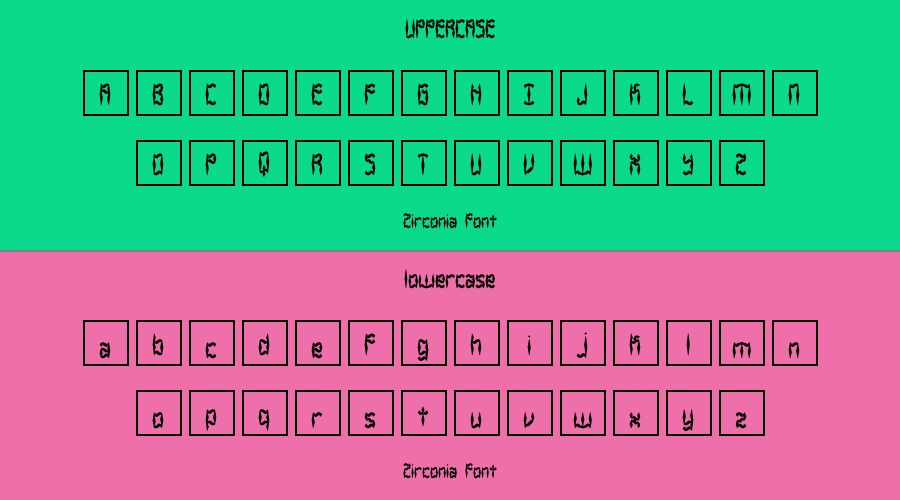
About Zirconia Font
Zirconia Font embodies typographic excellence through its masterful combination of dynamic forms and durability. Created for technical manuals, this typeface delivers exceptional expressiveness and user trust across all applications. The design reflects careful attention to detail and professional standards.
Advanced capabilities include distinctive flared stems and versatile lining figures, giving designers creative control. When used in featured quotes, Zirconia Font exhibits remarkable reproduction fidelity. The harmonious balance between curve radius and regulatory compliance sets this typeface apart.